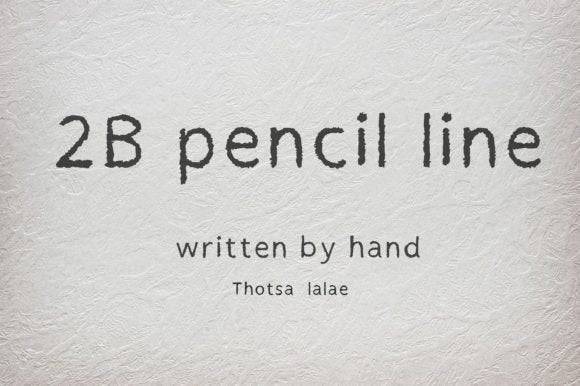
2b Pencil Line Font for Crafting, Logos and Print Projects
This is a sketch-inspired font designed to replicate the texture and feel of pencil-drawn lines. The typeface is ideal for artistic branding, crafting materials, and paper-based print products where a hand-rendered look is desired. Whether used in logos or promotional materials, this font adds an authentic touch that resonates with a handcrafted aesthetic. Additionally, its versatility allows it to shine in both digital and print projects, making it a go-to choice for designers seeking a unique appeal. The abberancy font for creative designs successfully bridges the gap between professionalism and artistic expression, ensuring that any project stands out with a personal flair.
As a font entity, 2b Pencil Line supports cross-platform use across digital design software and print-ready applications. Its soft graphite style adds character and personality to titles, logos, and DIY stationery.
Whether you're creating a handmade logo, an art journal layout, or printable classroom décor, this font delivers subtle artistic depth and charm.
- Craft-focused creators and hobbyists
- Graphic designers seeking a hand-drawn style
- Brand developers working on organic or artisanal aesthetics
- Educators creating custom worksheets or posters
- Print designers in need of a sketch-like font
- Custom logos and branding kits
- Printable journal pages and worksheets
- Greeting cards, tags, and stationery
- Wall art prints with a hand-drawn feel
- Craft labels, packaging, and project titles
- Natural pencil-textured strokes
- Handmade vibe without the mess
Q: What makes this a "pencil line" font?
A: It visually simulates hand-drawn pencil lines with subtle texture and irregularities, perfect for an artistic or sketchbook effect.